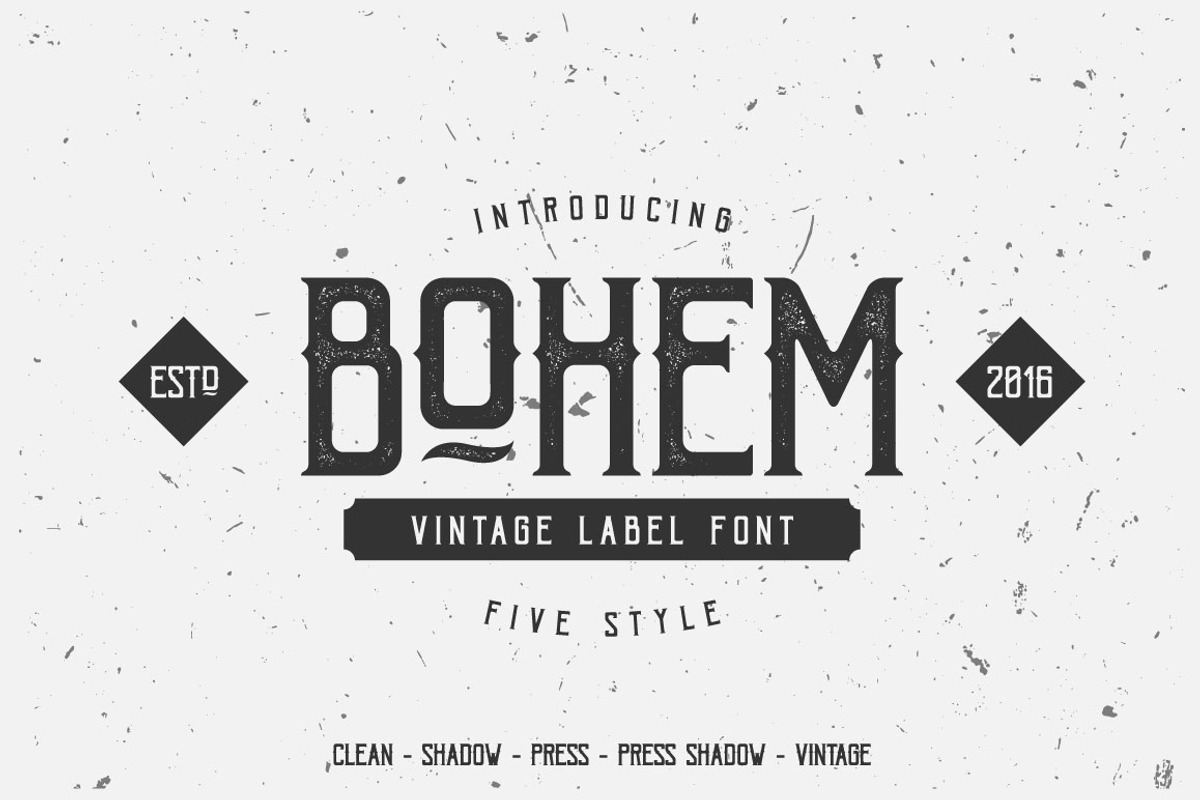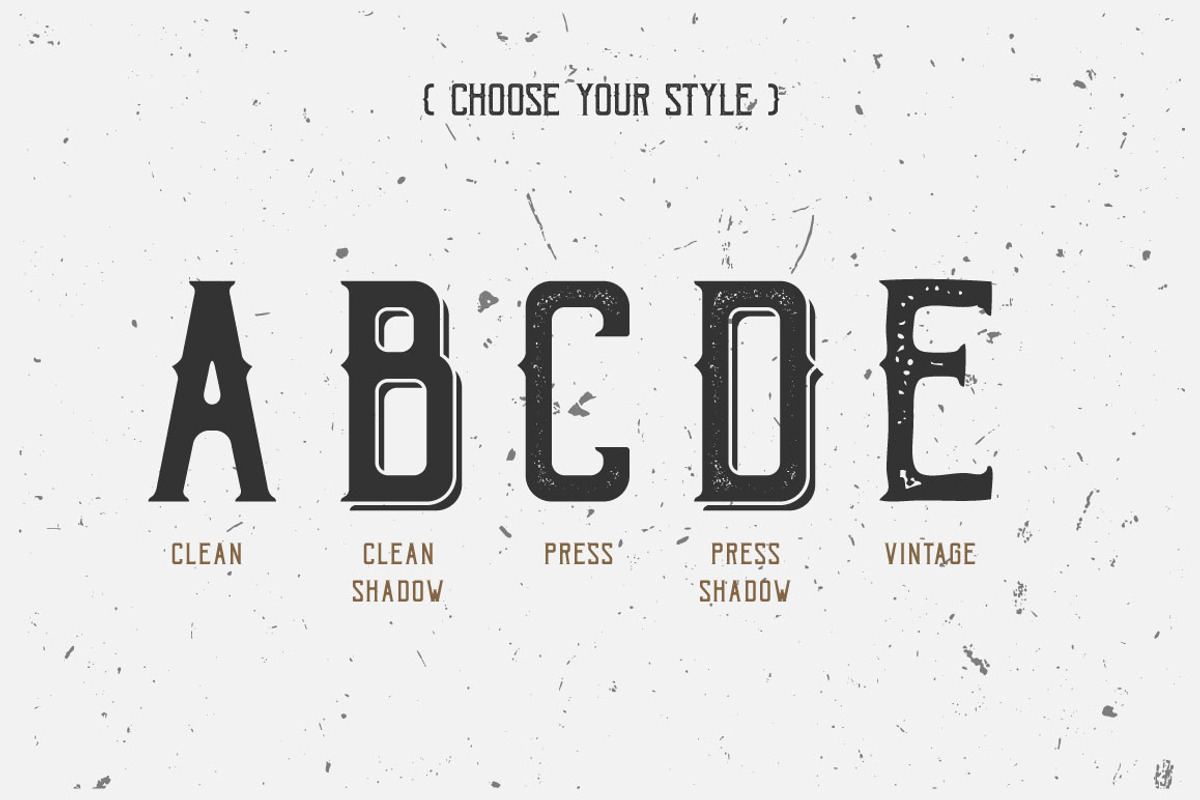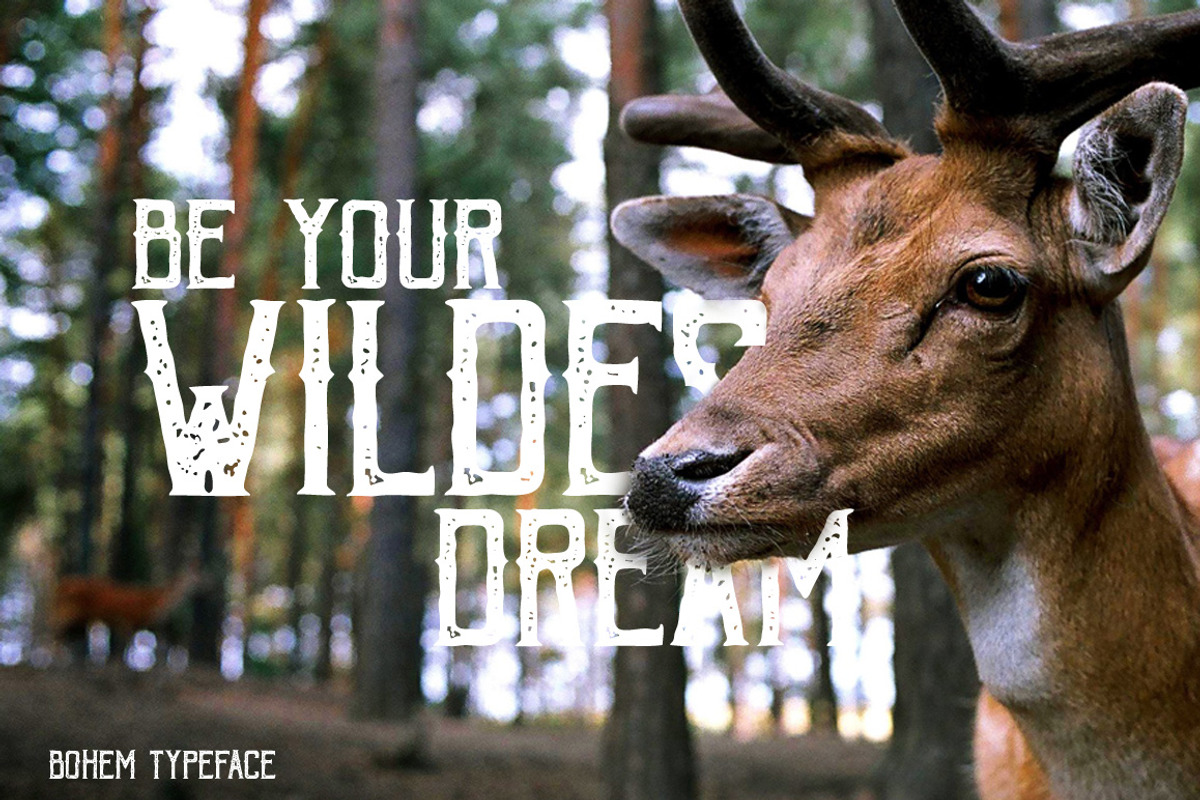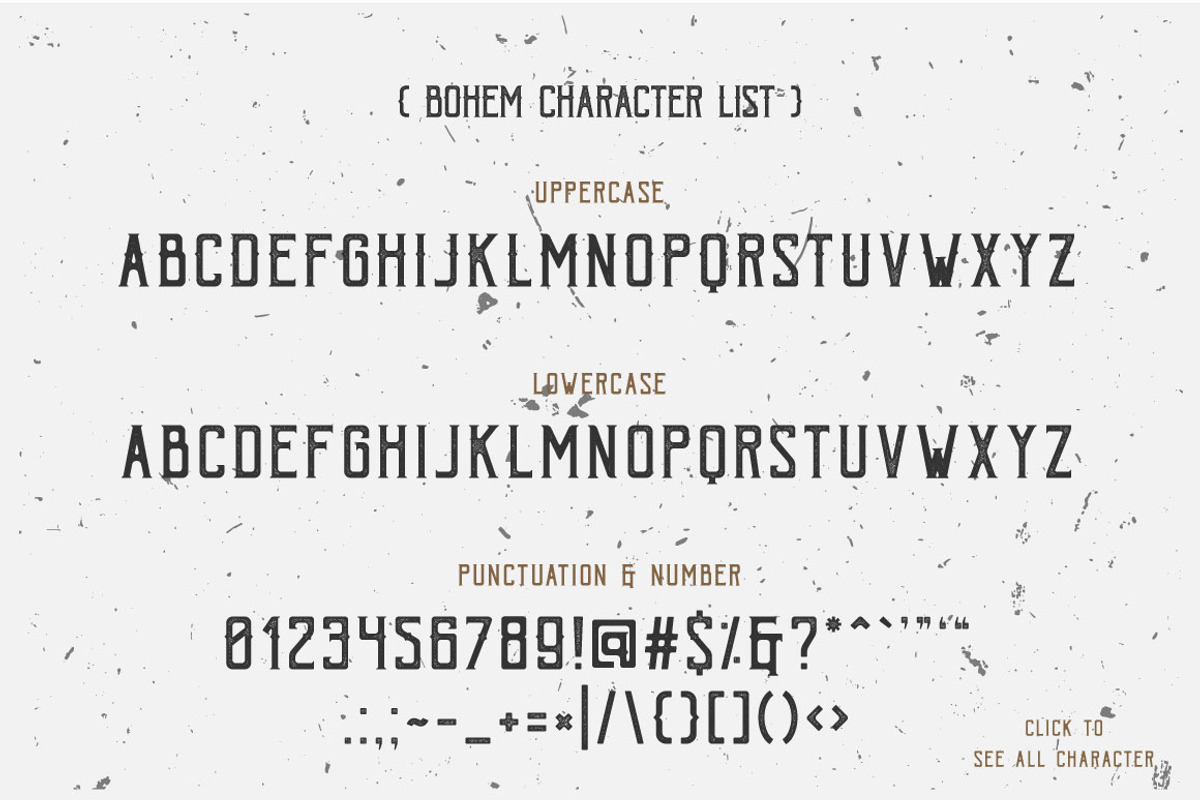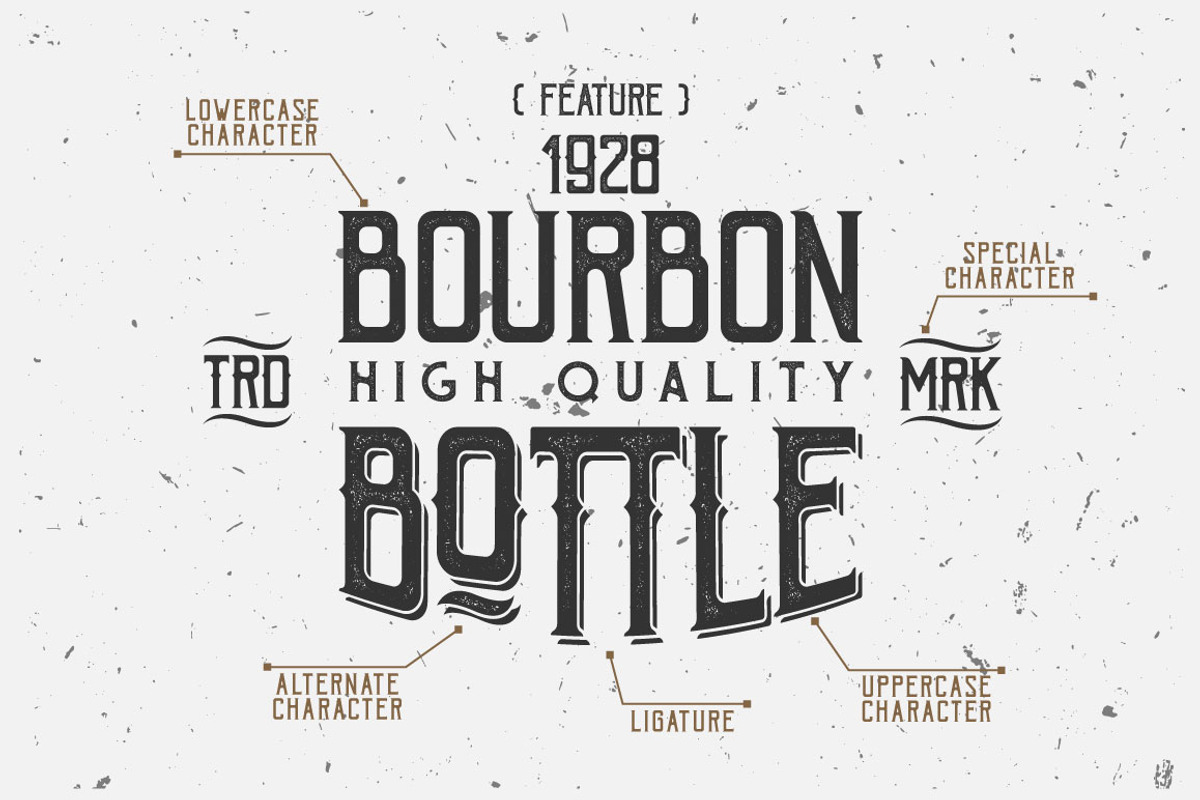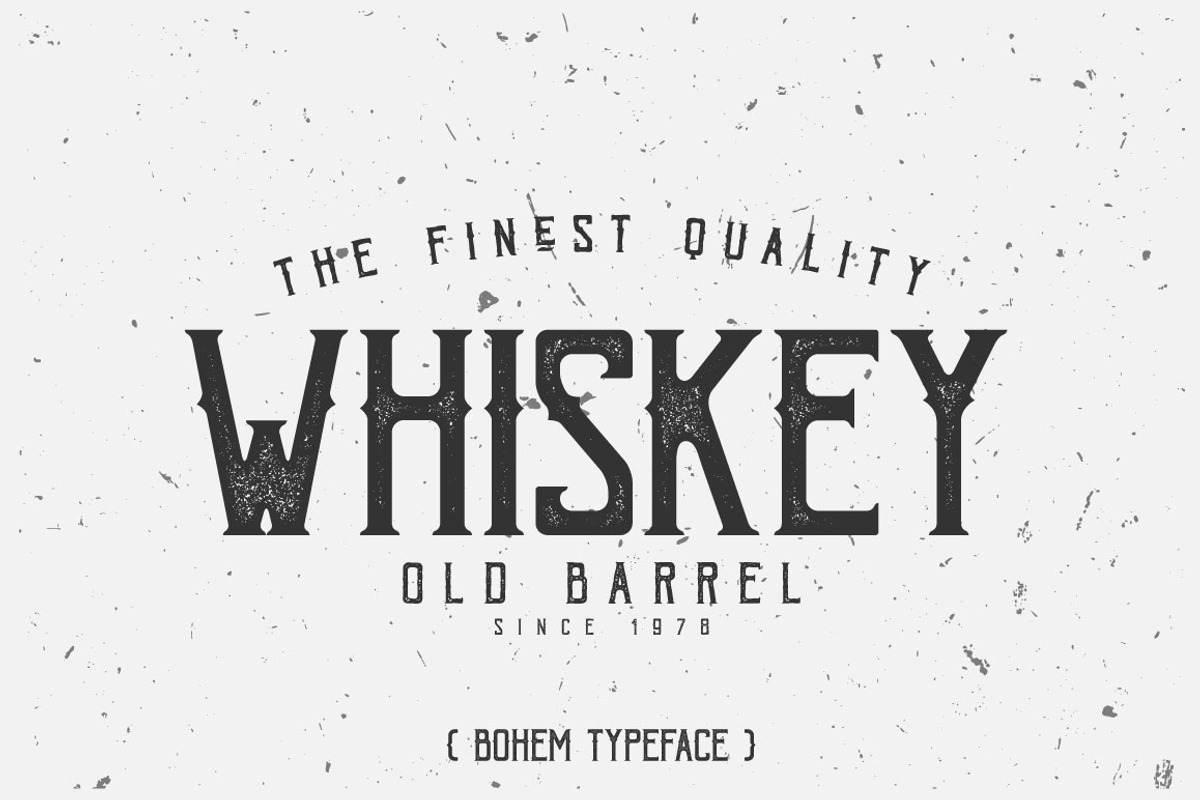
Bohem Typeface - 5 Font Styles
Yes, Bohem have 5 Style : Clean, Shadow, Press, Press Shadow & Vintage with vintage character inspired from beer and brewery its very helpfull to get Vintage design. Suitable and applicable to create vintage design, branding, logos, product packaging, invitation, qoutes, t-shirt, label poster etc.
Lowercase
Punctuation and Number
Multilingual Language
Alternate Character & Ligature
Special Character